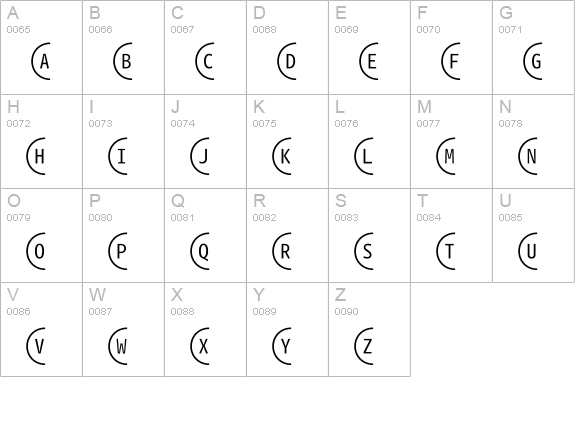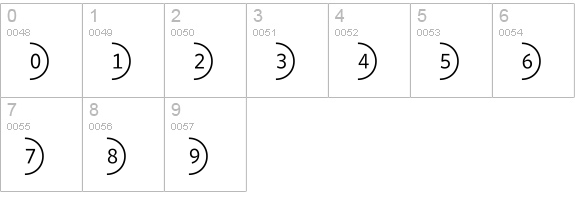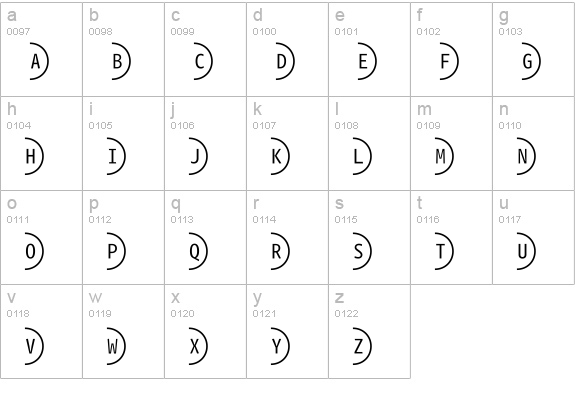
WhitneyIndexWhite-RoundLt2 font is a captivating and eye-catching typeface that exudes elegance and sophistication. Its rounded edges and clean lines make it perfect for a wide range of design projects, from logos to headlines, and everything in between. This font offers a unique balance between modernity and classic charm, making it suitable for both contemporary and traditional designs. Its sleek and stylish appearance is sure to make a lasting impression on your audience. One of the best aspects of WhitneyIndexWhite-RoundLt2 font is that it is available for free download at FontsMarket.com. This means that you can easily access and incorporate this stunning font into your projects without any cost or hassle. Whether you are a professional designer or a creative enthusiast, WhitneyIndexWhite-RoundLt2 font is a valuable addition to your font collection. Its versatility and timeless appeal will allow you to create visually striking designs that stand out from the crowd. So why wait? Take advantage of this incredible opportunity to enhance your design projects with the freely available WhitneyIndexWhite-RoundLt2 font. Download it now at FontsMarket.com and unlock a world of endless creative possibilities.